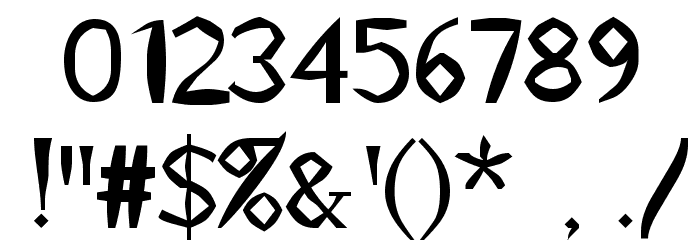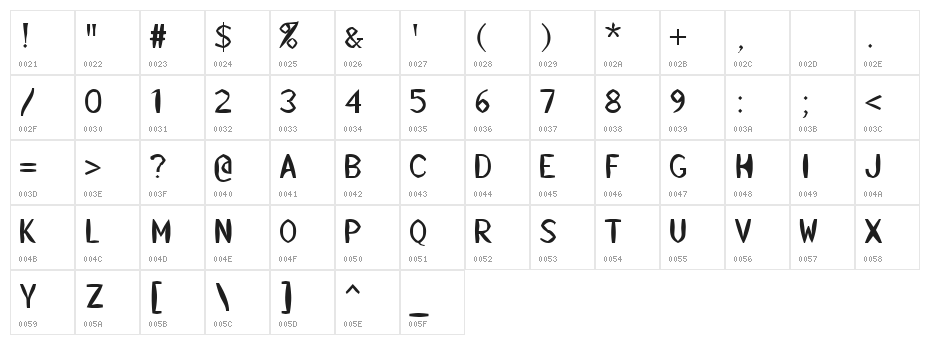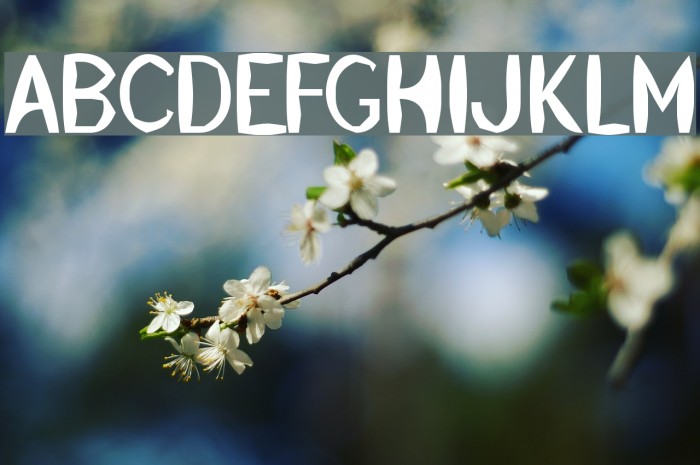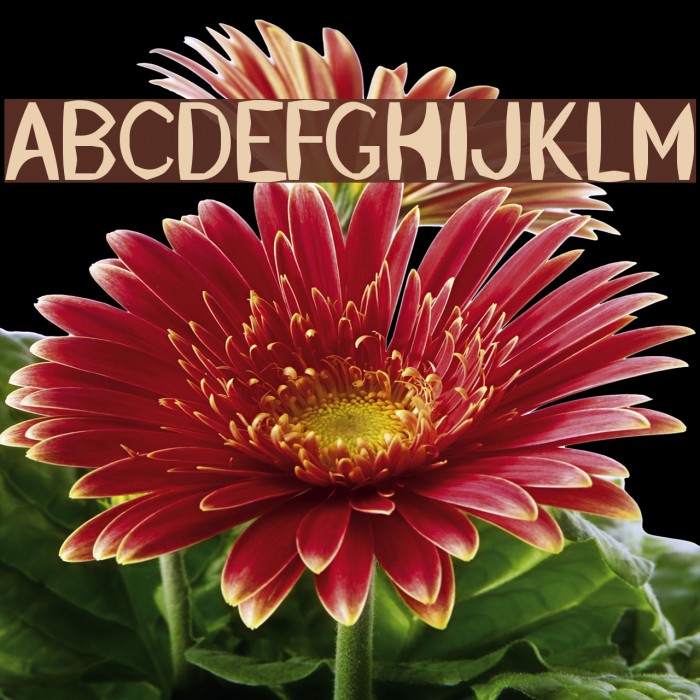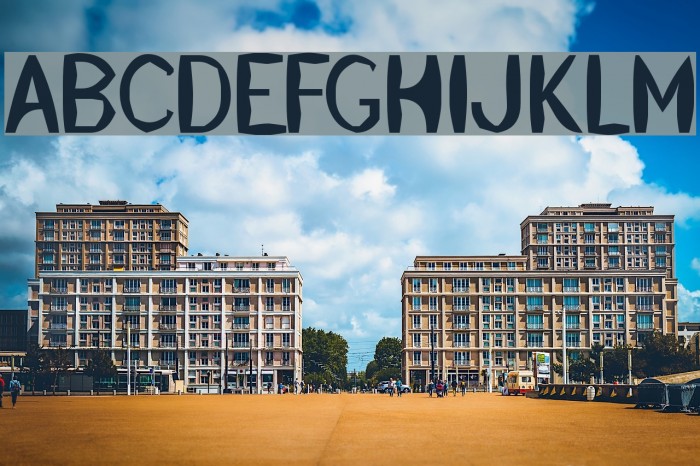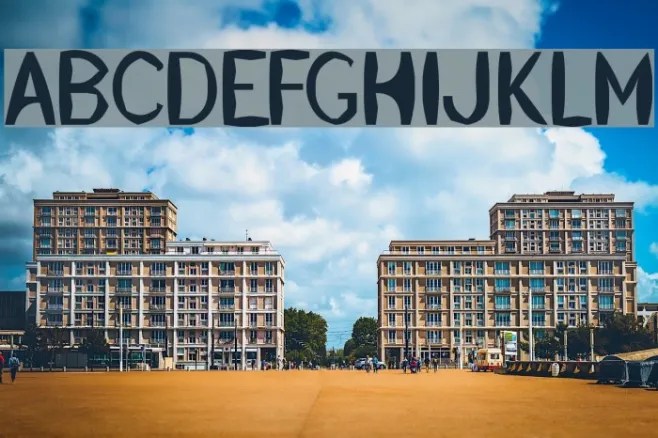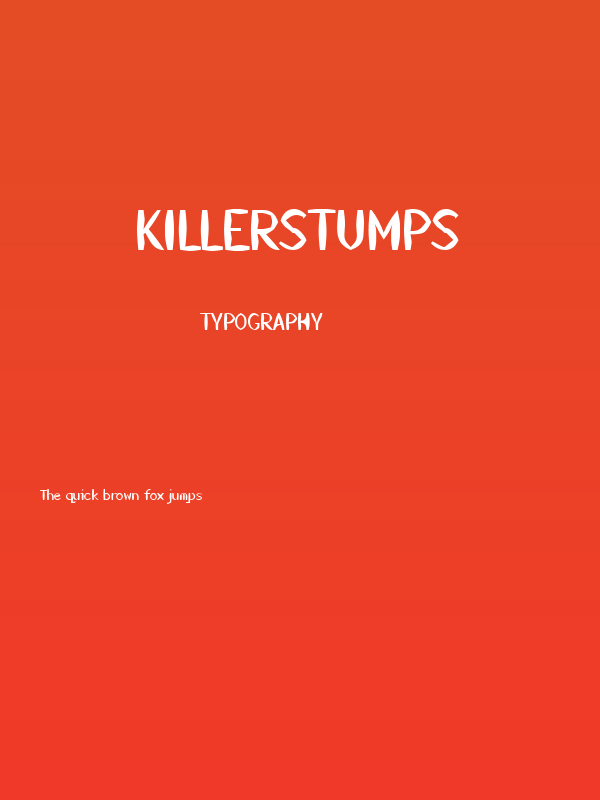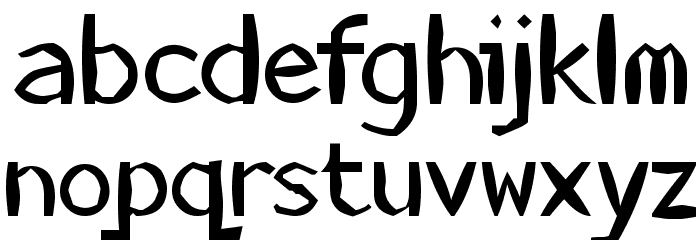
KillerStumps Font
KillerStumps Description
This font features a bold and dynamic style with a hand-drawn appearance. The characters exhibit a playful yet edgy vibe, characterized by irregular strokes and varying thickness. The uppercase letters are robust and slightly angular, while the lowercase letters maintain a consistent flow with unique, artistic flair. Numbers and special characters follow the same design ethos, offering a cohesive look across all glyphs. This font's distinctive style makes it suitable for creative and unconventional projects, where a touch of personality is desired.